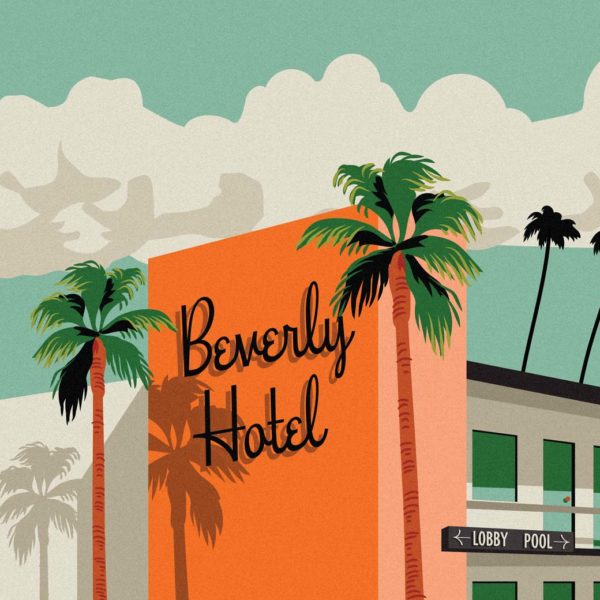
Beverly Drive Font – Left Lean Script
Beverly Drive font is a left-leaning script from Hoodzpah, Inc. inspired by Beverly Hills: from the posh Rodeo shop signs, to the kitschy apartment complex logos.
Beverly Drive is a left-leaning script font from Hoodzpah, Inc. inspired by Beverly Hills: from the posh Rodeo shop signs, to the kitschy apartment complex logos. Beverly Drive is the kind of font you can dress up (holiday cards or wedding invitations) or dress down (can’t you just imagine this on a laminated diner menu?).
• Numericals, currency symbols, fractions, and punctuation.
• Tons of fun extras like smiley faces, “rd” “th” “st” superscript glyphs, and extra ampersands.